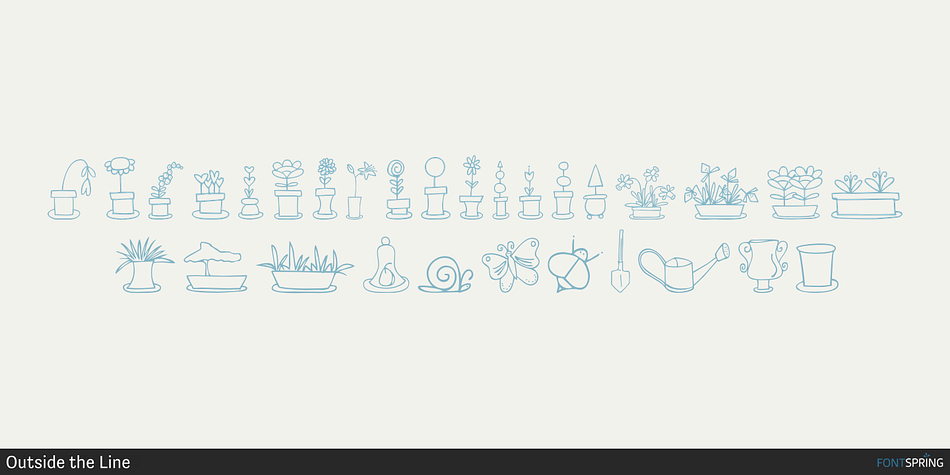
Just Flower Pots is a dingbat font published by Outside the Line.
Just Flower Pots Regular
Pots of flowers, pots of leaves. 30 topiaries, daffodils, hearts, daisies, lily, a snail, a butterfly, a ladybug, a shovel, a bell jar and watering can too.